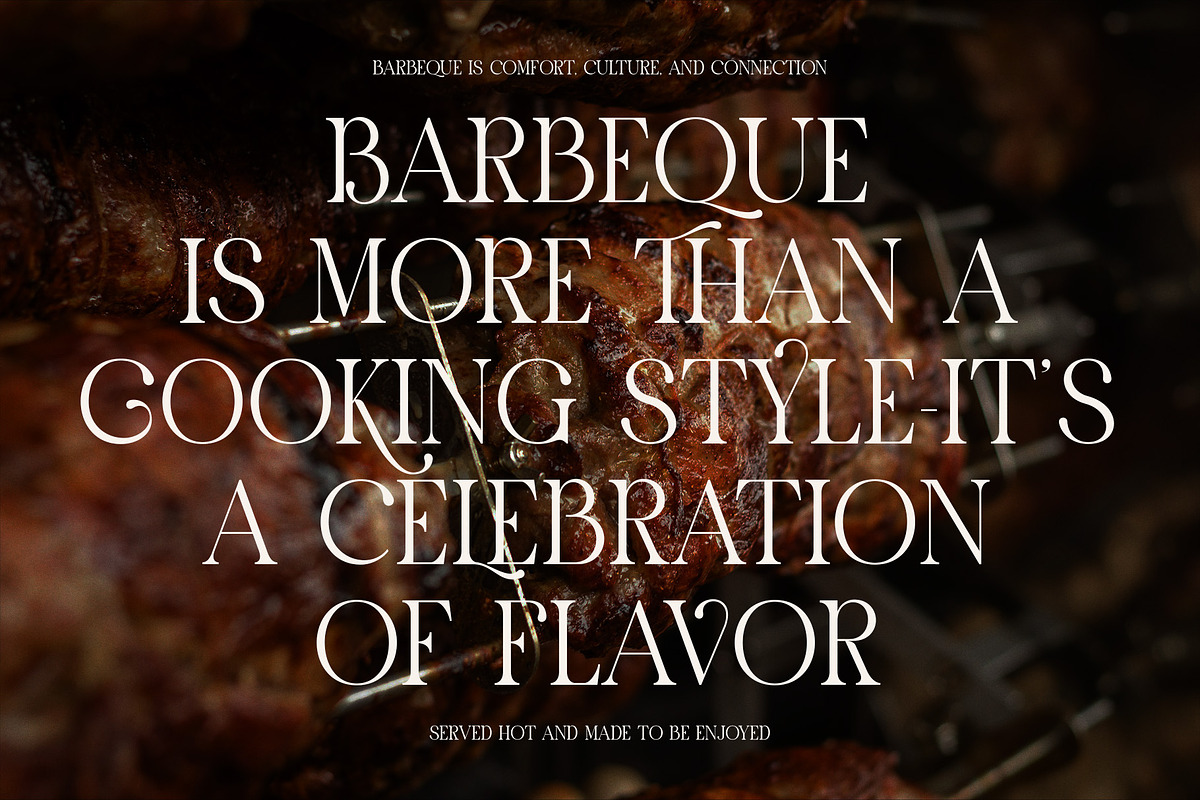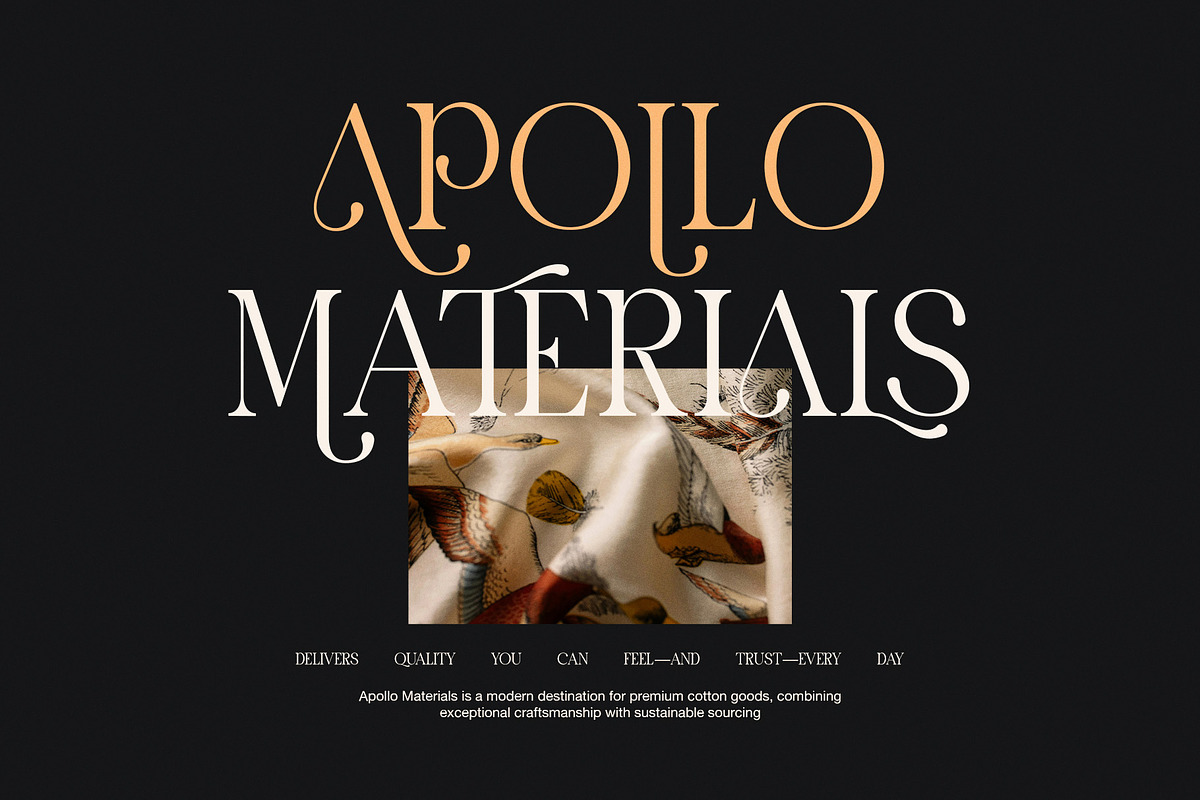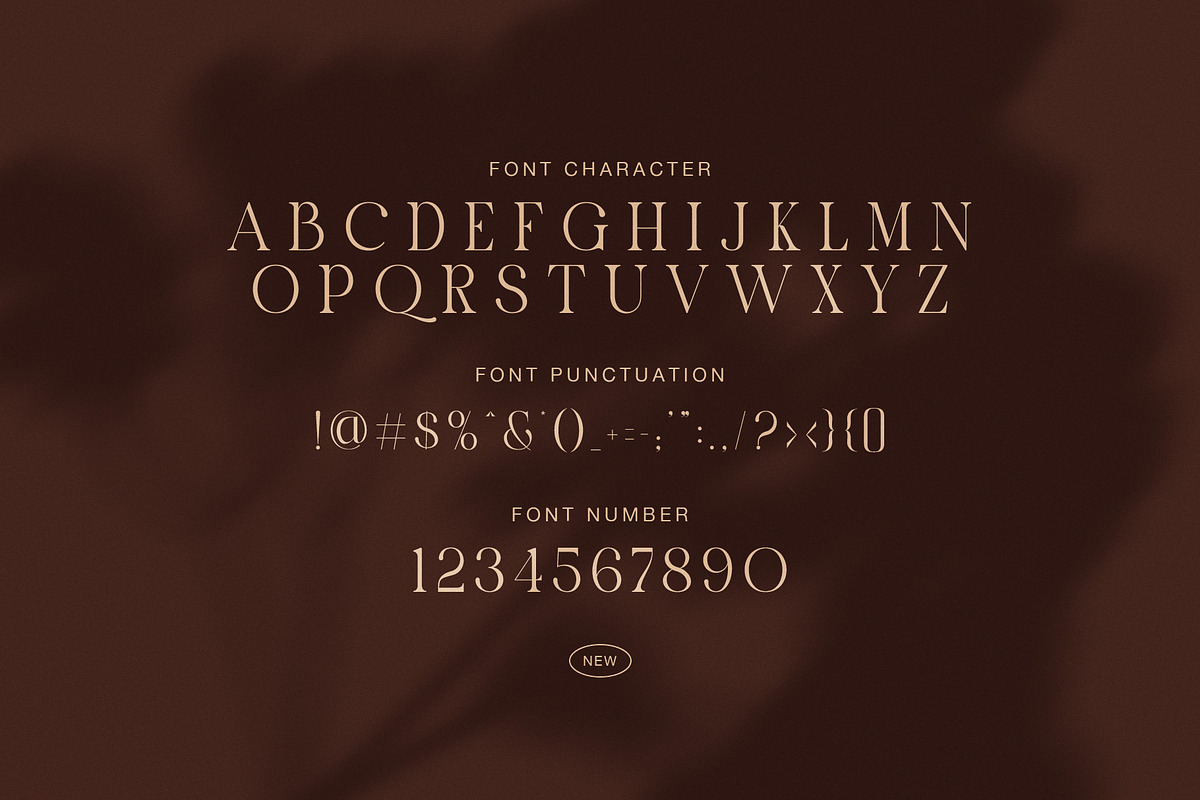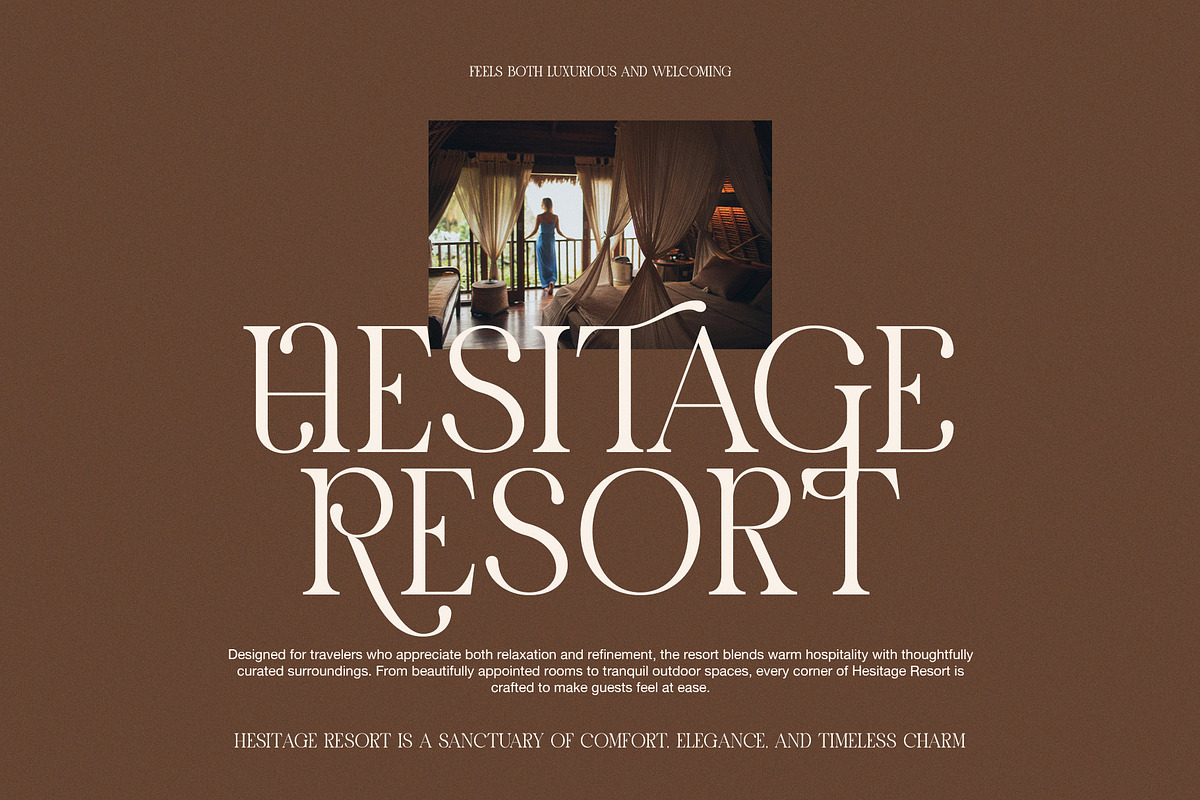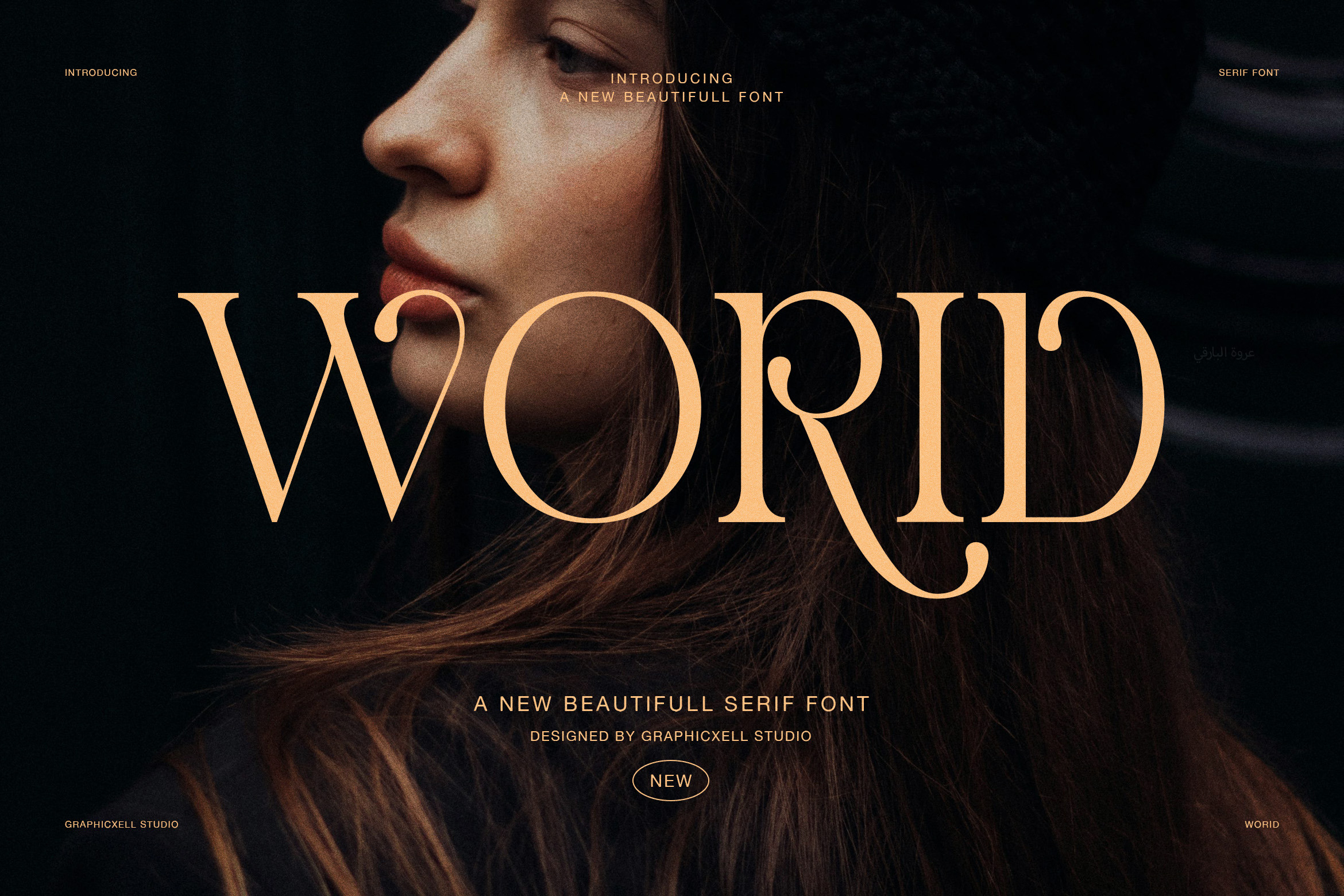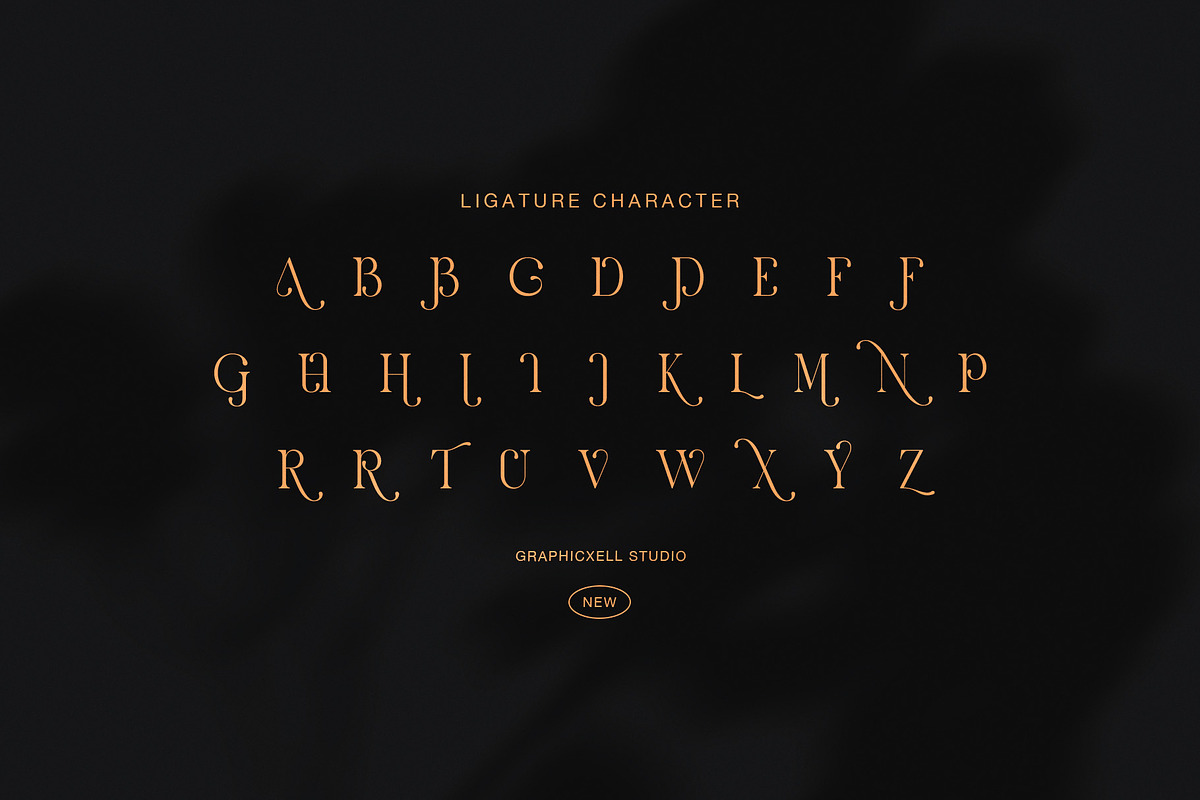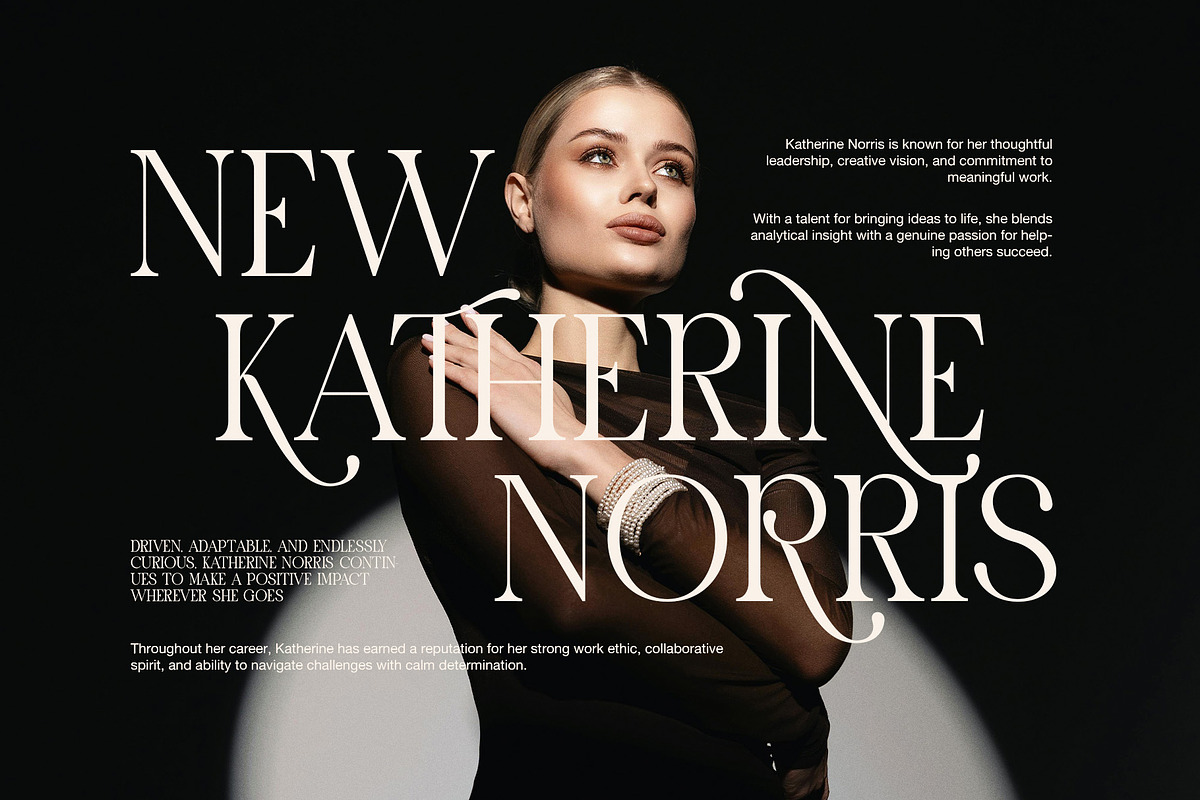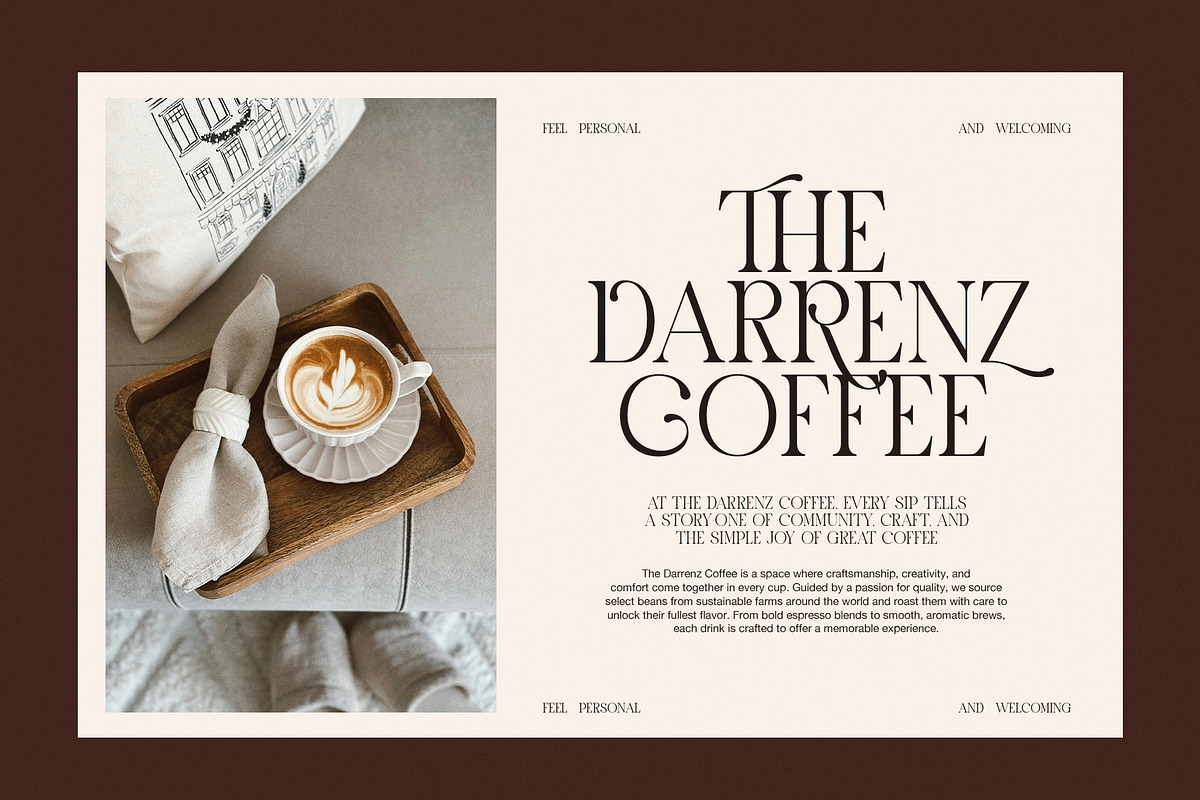
Worid Elegant Luxury Serif Font
Introduce a refined sense of luxury with this elegant serif font, crafted for designers who value beauty and clarity. Its graceful letterforms blend modern sophistication with timeless style, so every word feels polished and confident. Moreover, the clean structure keeps text readable while the subtle curves add personality. As a result, your designs look professional, warm, and memorable at the same time.
This font features high-contrast strokes and delicate serifs that create a premium visual tone. In addition, the stylish alternates and ligatures allow you to shape headlines with unique character. Whether you design for fashion, hospitality, branding, or editorial layouts, this typeface delivers a calm yet powerful presence. Because of its balanced proportions, it performs beautifully in both large titles and elegant subheadings.
Furthermore, the typeface adapts easily to many creative needs. You can use it for luxury packaging, boutique logos, wedding materials, or social media visuals. Even minimalist layouts gain a richer voice when paired with this refined serif style. Therefore, it becomes a reliable choice for projects that require sophistication without losing readability.
Elegant high-contrast serif design
Beautiful ligatures and stylistic alternates
Clean, readable structure for display use
Ideal for luxury branding and fashion themes
Suitable for logos, headlines, and packaging
Works well in print and digital media
Additionally, the font’s soft curves and refined terminals create a gentle flow between letters. This detail enhances visual harmony, especially in large compositions. Meanwhile, the classic foundation ensures that your work never feels trendy or short-lived.
In conclusion, this elegant serif font helps you communicate prestige, warmth, and confidence in one consistent voice. If you want typography that feels luxurious yet approachable, this typeface will elevate your design instantly while remaining easy to use.